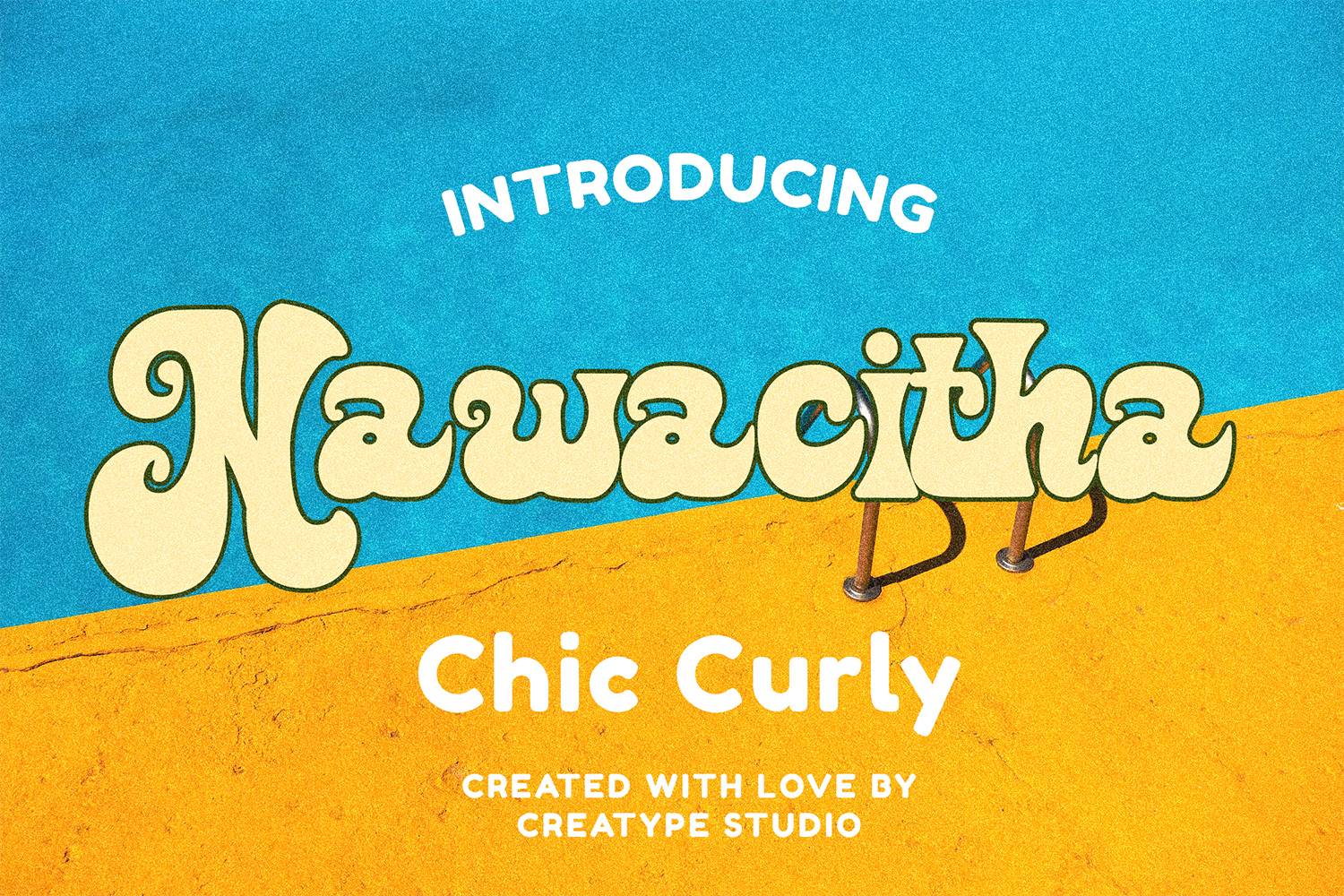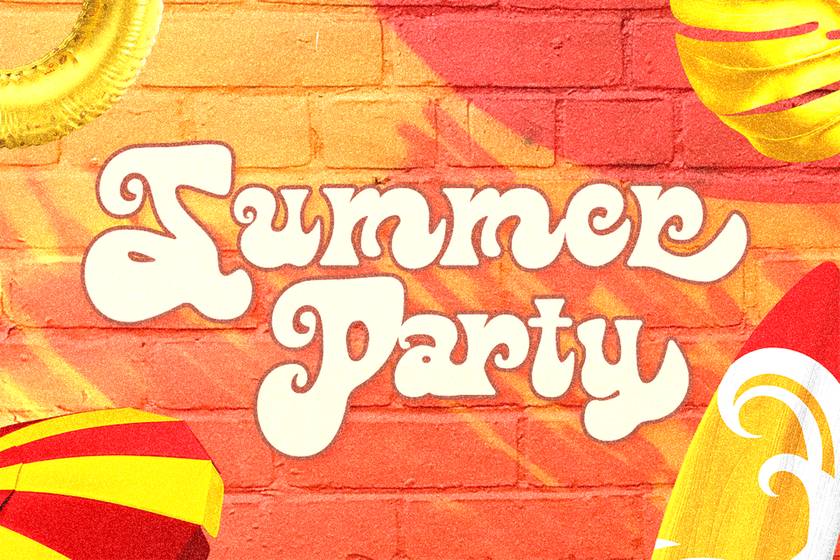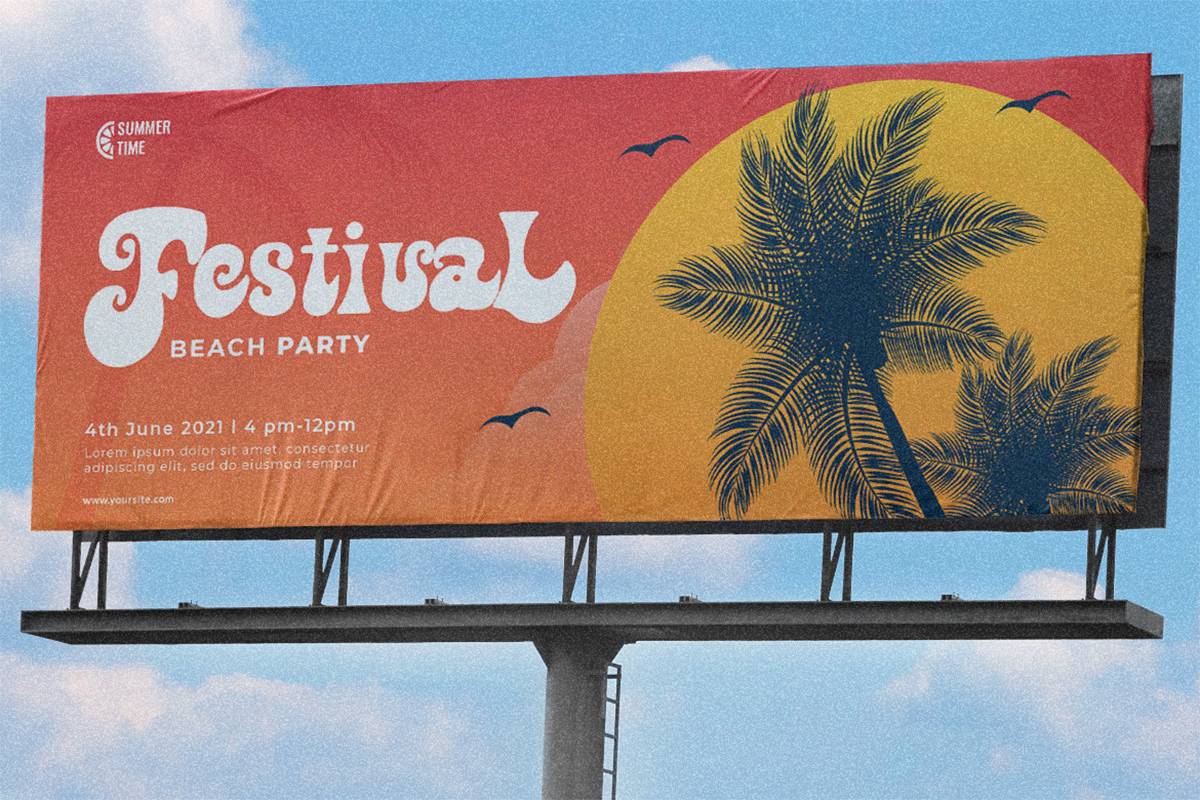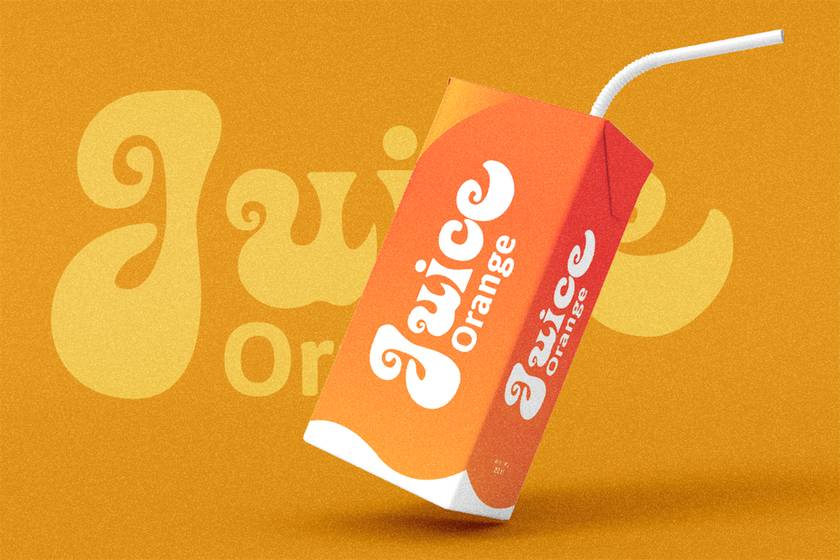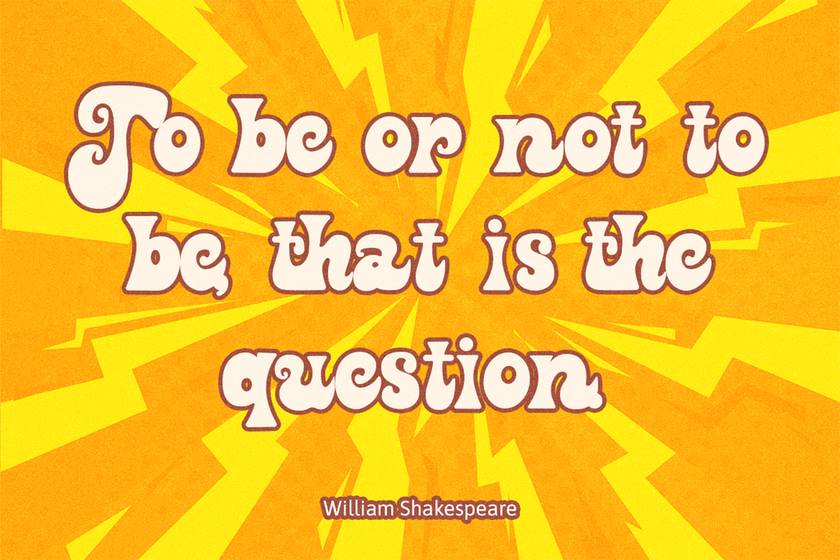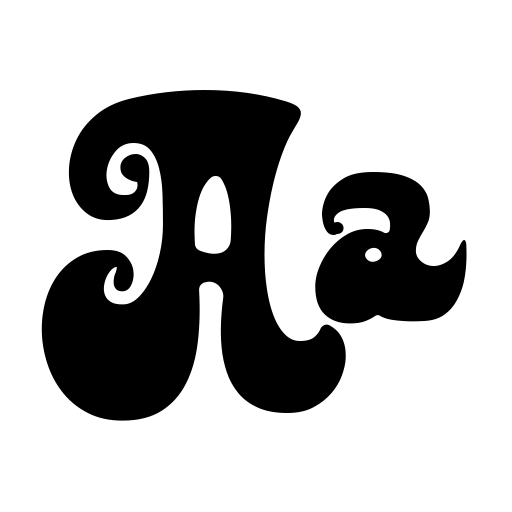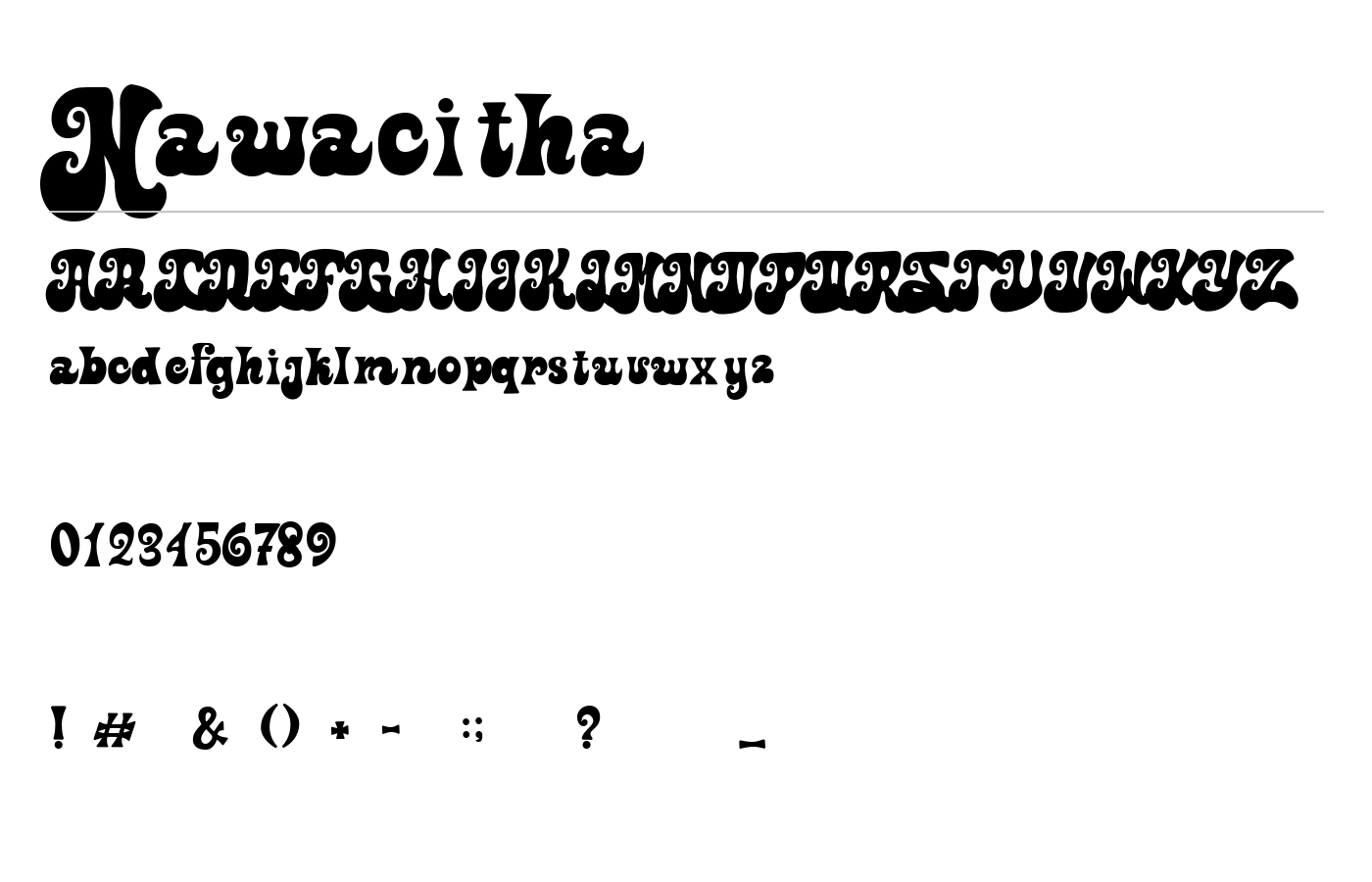
Nawacitha is a bold and playful display serif font featuring thick, rounded serifs and whimsical, almost retro letterforms with high contrast stroke weights and unique curled details, especially notable in characters like the uppercase "N" and lowercase "g." Its compact width and decorative style make it ideal for eye-catching headlines, logos, and packaging that seek a fun, vintage vibe with a strong personality. This font works best in creative and informal contexts where a bold, memorable impression is desired.
Nawacitha Font
About Nawacitha Font
| Font family | Nawacitha Font |